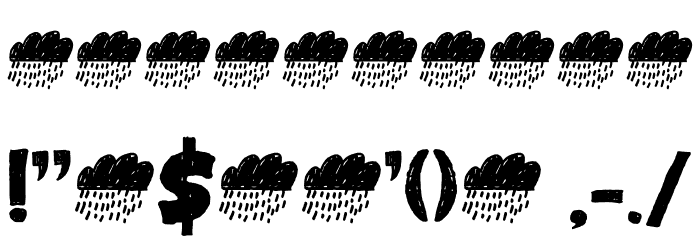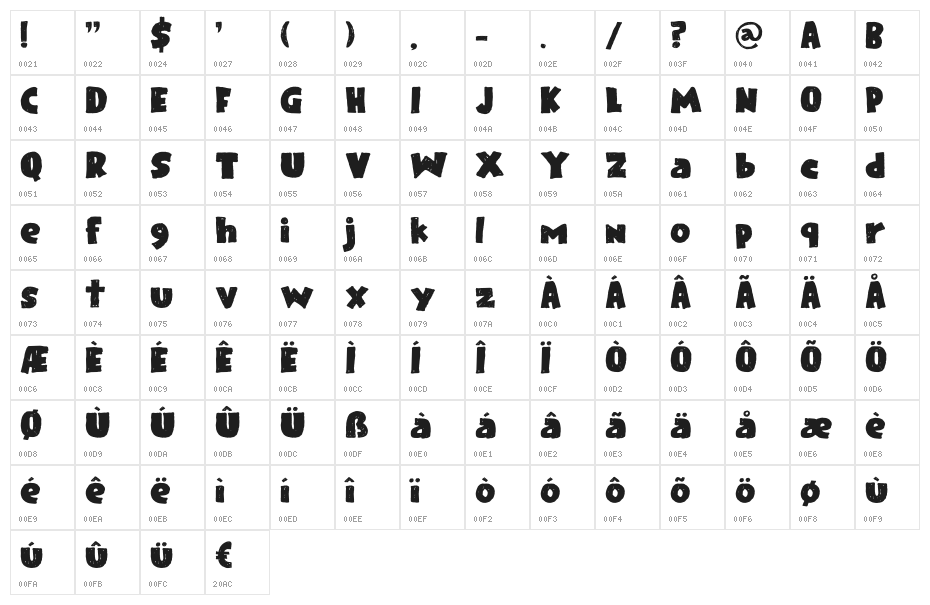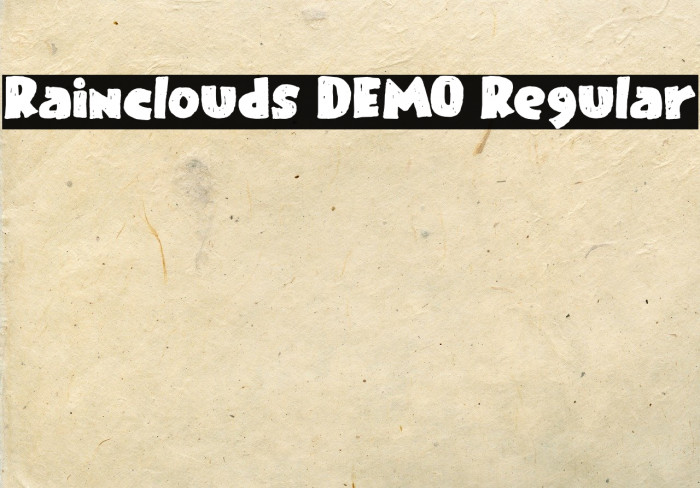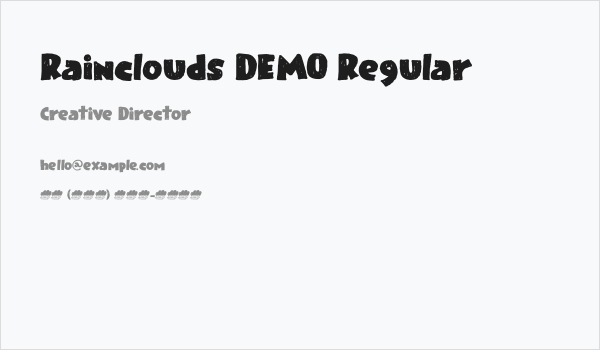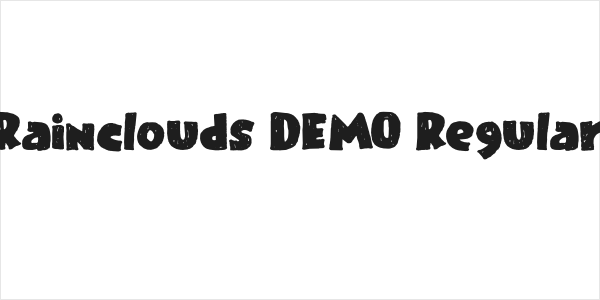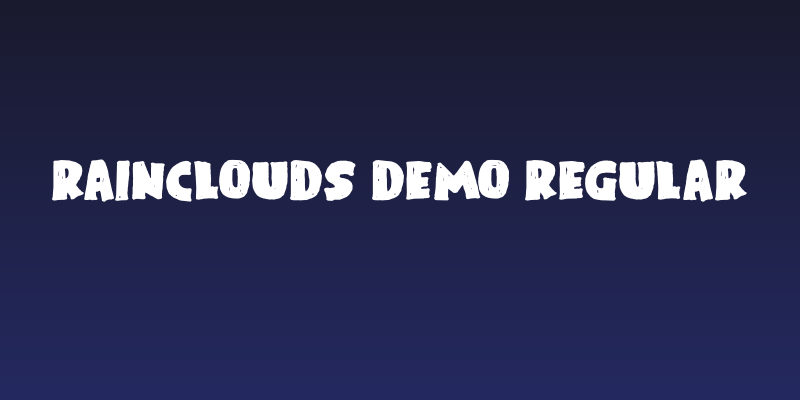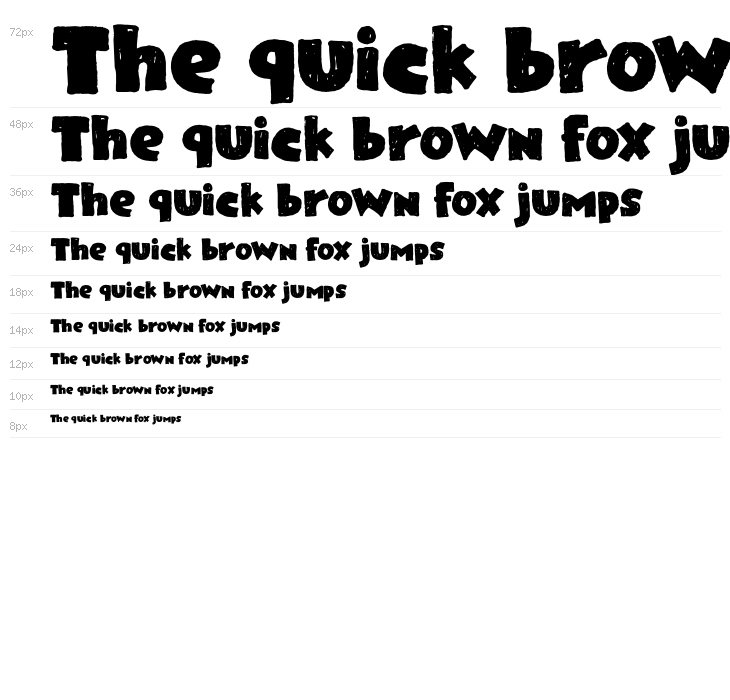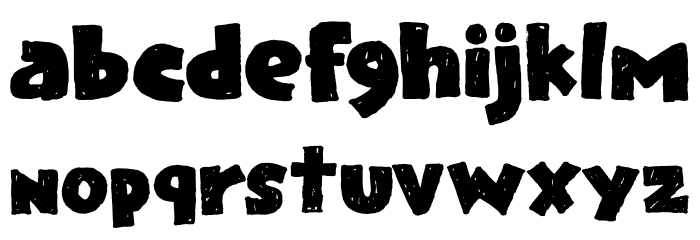
Rainclouds DEMO Regular Font
Rainclouds DEMO Regular Description
This font features a bold and playful design with a hand-drawn aesthetic. Each character is uniquely crafted with a textured appearance, resembling brush strokes or chalk. The letters have a slightly irregular shape, adding to the whimsical and artistic feel. The font includes both uppercase and lowercase letters, numbers, and a variety of special characters. The overall style is reminiscent of a rainy day, with cloud motifs integrated into some of the characters, enhancing its thematic appeal. This font is ideal for projects that require a fun, informal, and creative touch.
| Proposed Projects | Perfect for children's book covers, playful posters, greeting cards, or any creative project that needs a whimsical touch. |